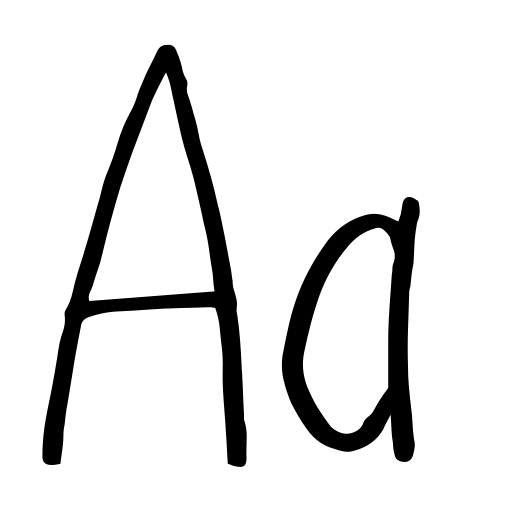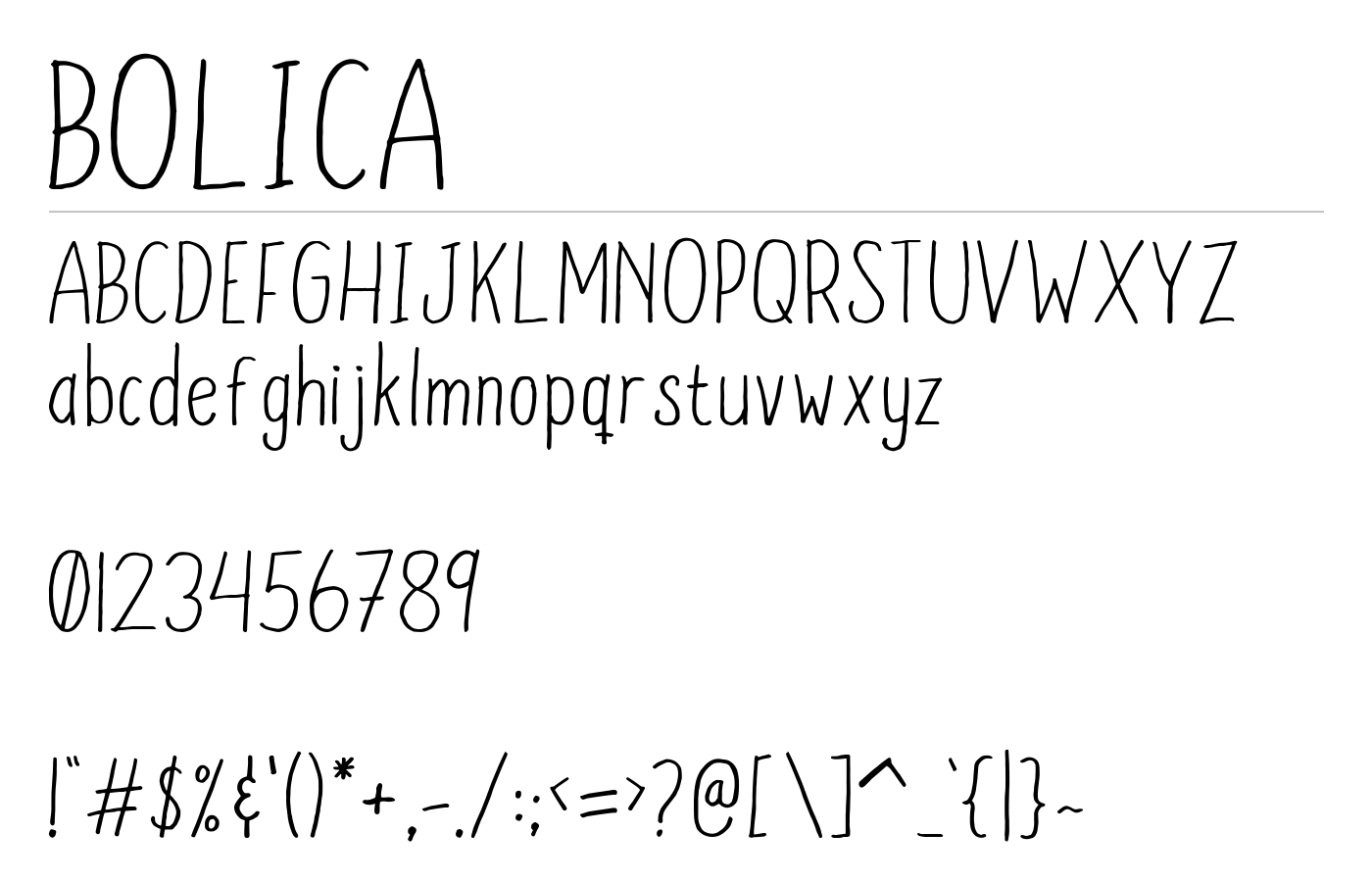
Bolica is a slender, hand-drawn sans serif font with a casual, playful vibe. Its tall, narrow letterforms and uneven strokes give it a friendly, approachable feel, making it perfect for creative and informal designs like invitations, children’s books, and quirky branding. The font’s light weight and organic style add personality while remaining easy to read in display sizes.
BOLICA Font